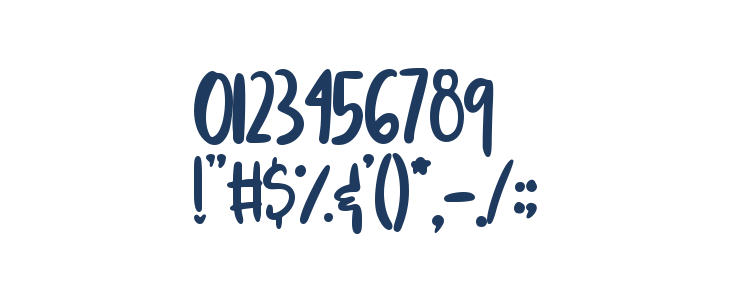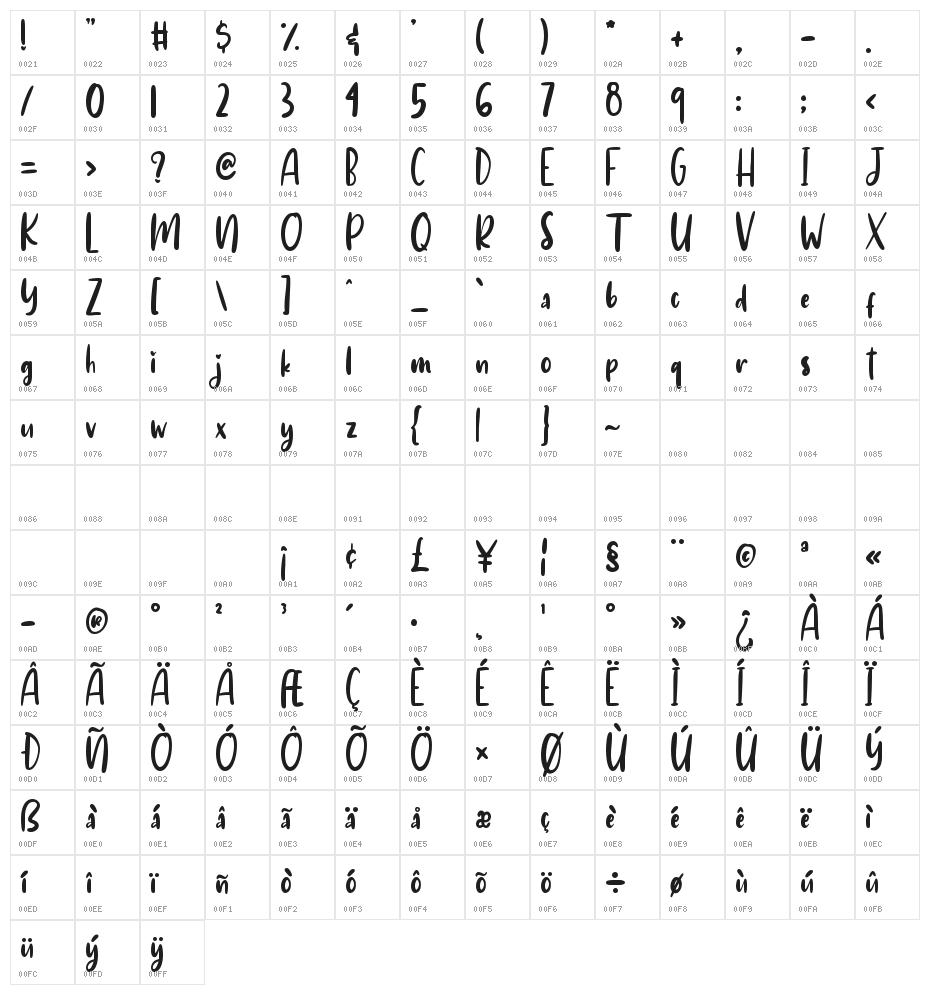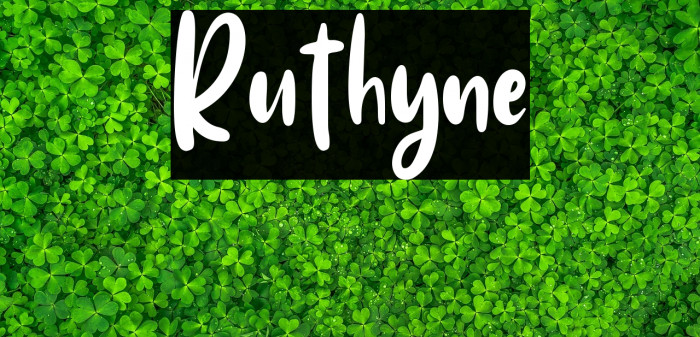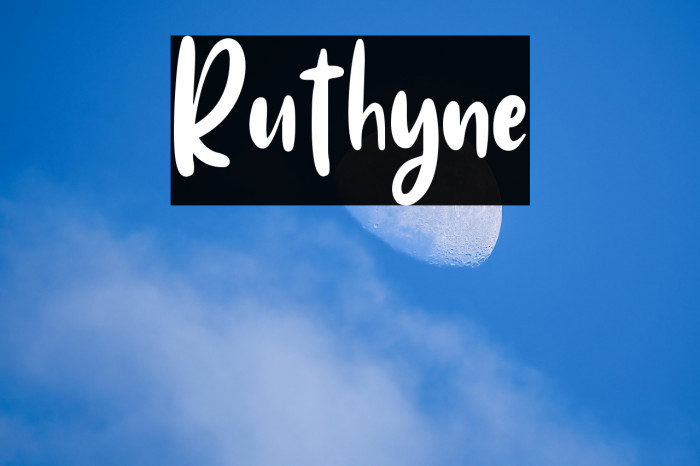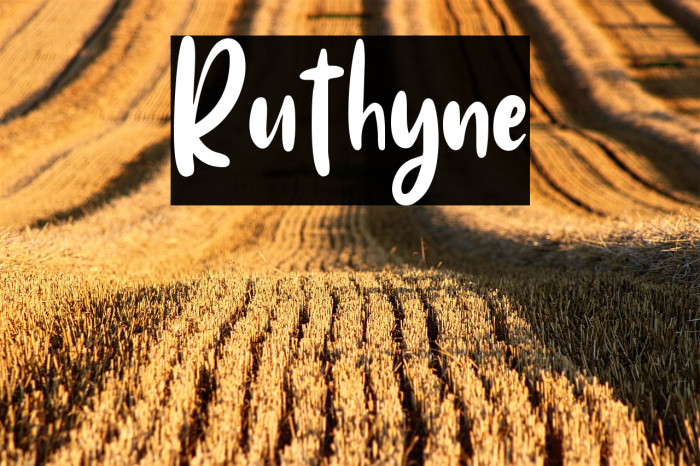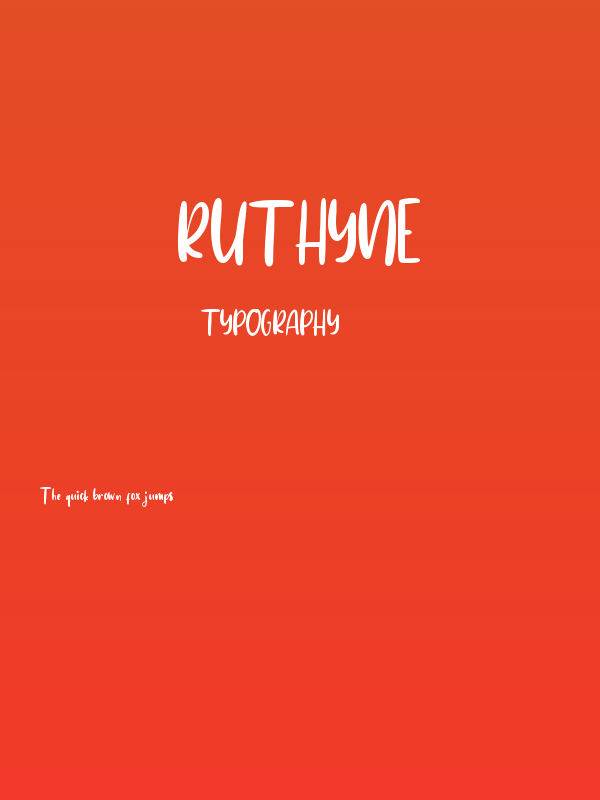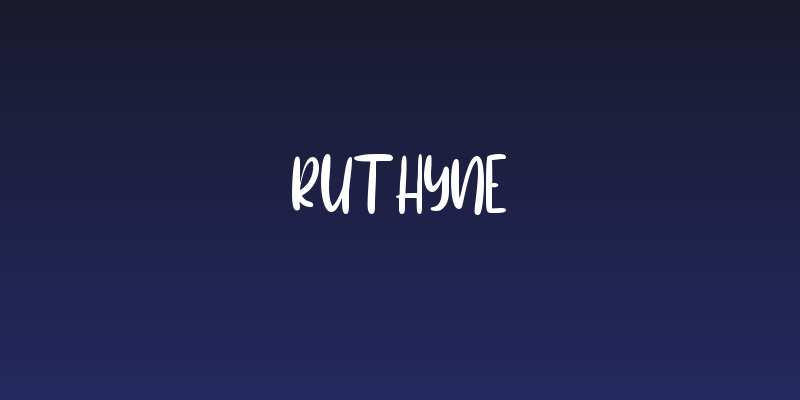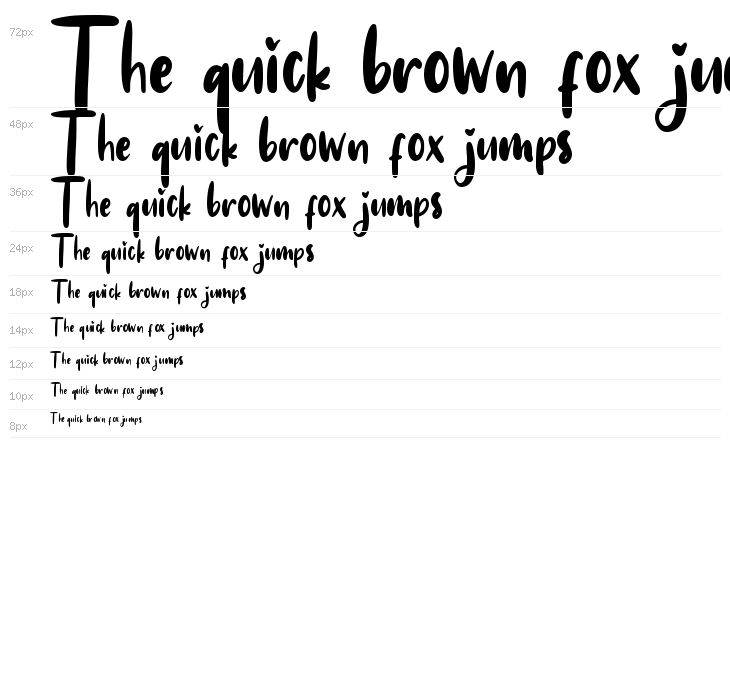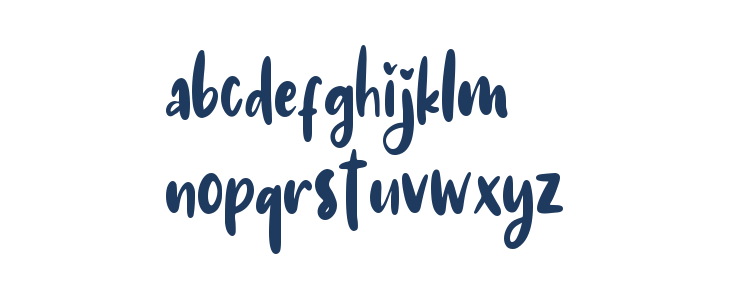
Ruthyne Font
Ruthyne Description
This font features a playful and energetic handwritten style, characterized by its bold and flowing letterforms. The uppercase letters are tall and slightly narrow, with a consistent stroke width that gives them a strong presence. The lowercase letters maintain the same lively aesthetic, with some characters having unique loops and curves that add to the font's charm. The numerals are bold and easy to read, matching the overall style of the alphabet. Special characters are included, maintaining the same playful and dynamic feel. This font is perfect for projects that require a personal and informal touch, such as greeting cards, invitations, or playful branding.
| Use Case | Logos, Headlines, Informal Text |
| Proposed Projects | Ideal for greeting cards, invitations, playful branding, and informal designs. |